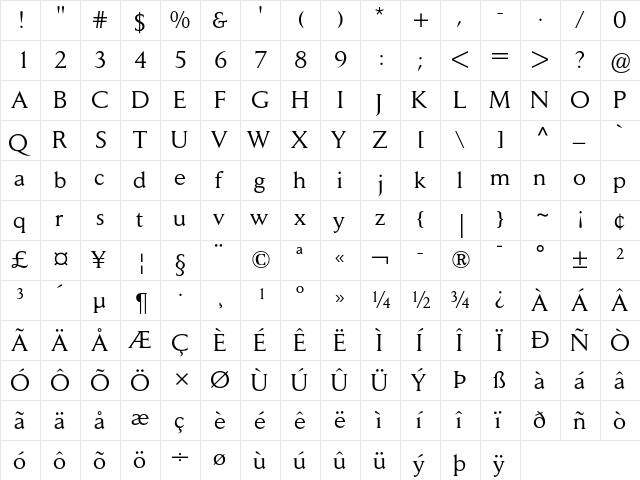
Jaeger Daily News Regular
Design Context for Jaeger Daily News Typeface
Jaeger Daily News offers clean, dependable letterforms without strong stylistic allegiance, making it a practical choice for designers who need flexibility.